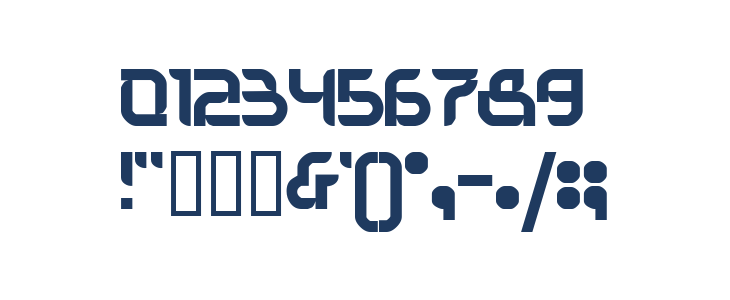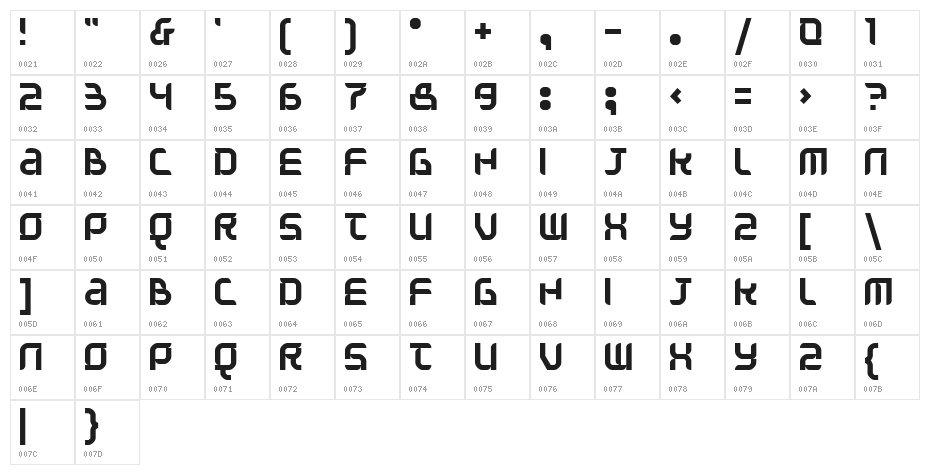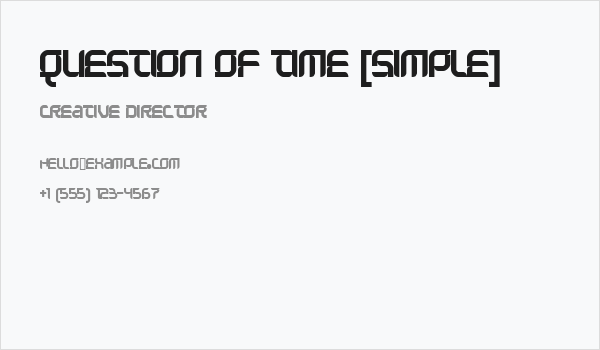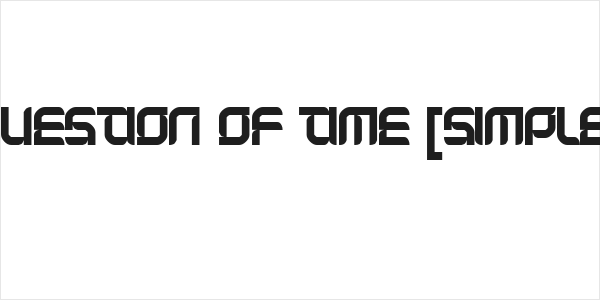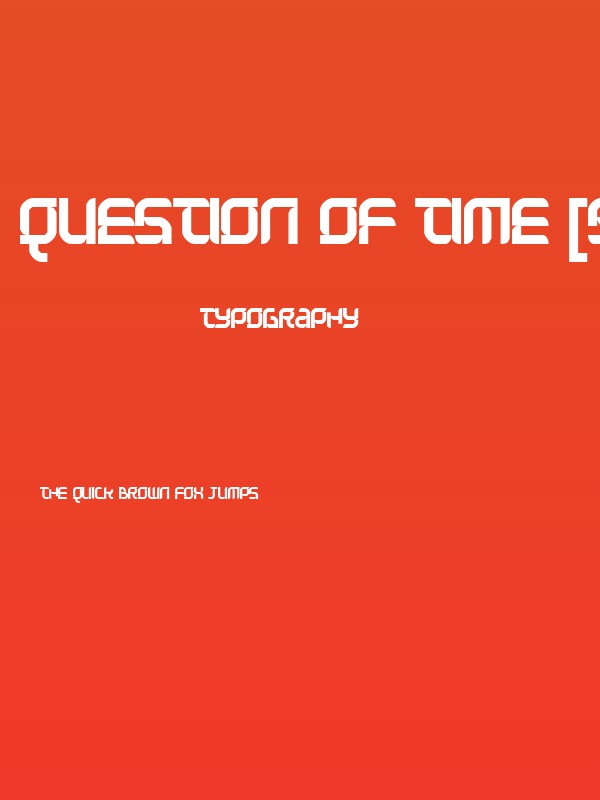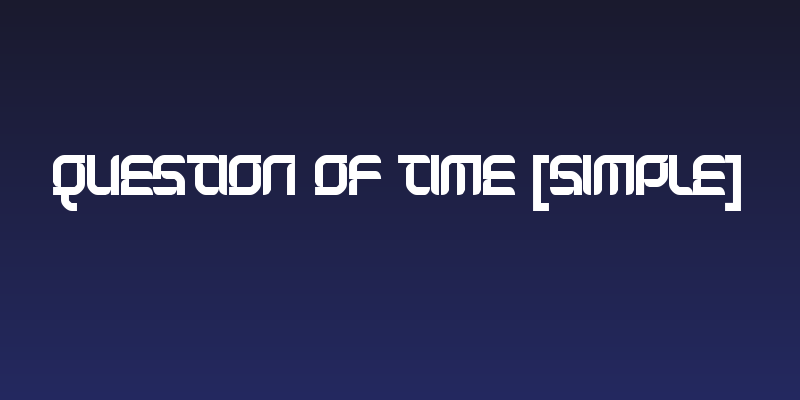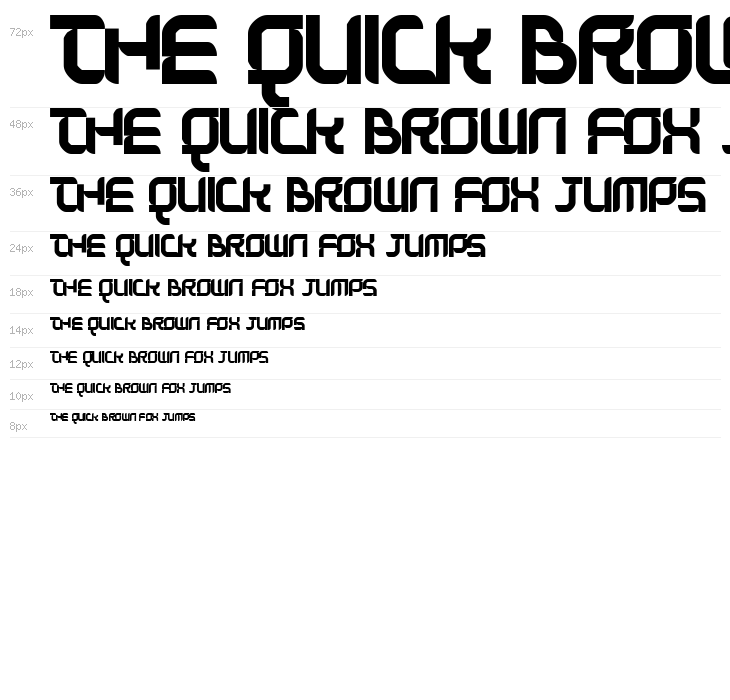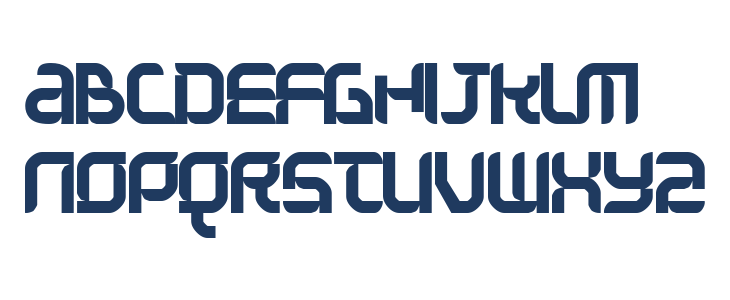
Question of time [simple] Font
Question of time [simple] Description
This font features a bold, futuristic design with geometric shapes and sharp angles. The characters are constructed with a consistent thickness, creating a uniform appearance. The uppercase and lowercase letters share a similar style, emphasizing symmetry and balance. The numbers and special characters maintain the same aesthetic, ensuring cohesion across all elements. The overall look is modern and tech-inspired, making it suitable for digital and sci-fi themed projects.
| Proposed Projects | Ideal for technology branding, sci-fi posters, video game titles, and digital interfaces. |